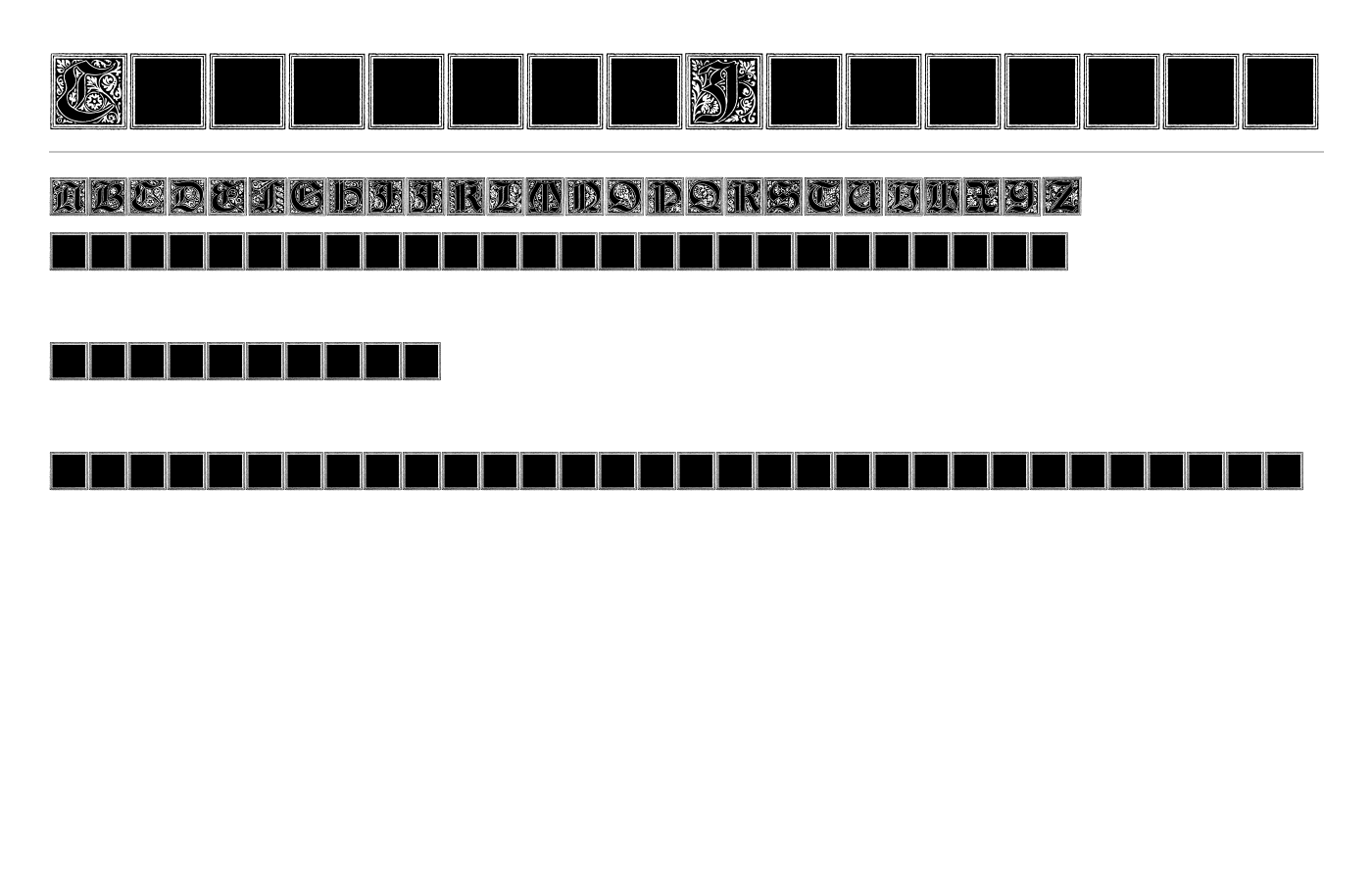
Camelot Initials is a decorative serif font characterized by highly ornate and intricate letterforms reminiscent of medieval manuscript lettering. Its elaborate floral and scrollwork embellishments give it a vintage, regal feel, making it perfect for monograms, luxurious branding, or historical-themed designs where an elegant, classical touch is desired. This font excels in display uses such as logos, book covers, and invitations where its decorative style can shine.
Camelot_Initials Font